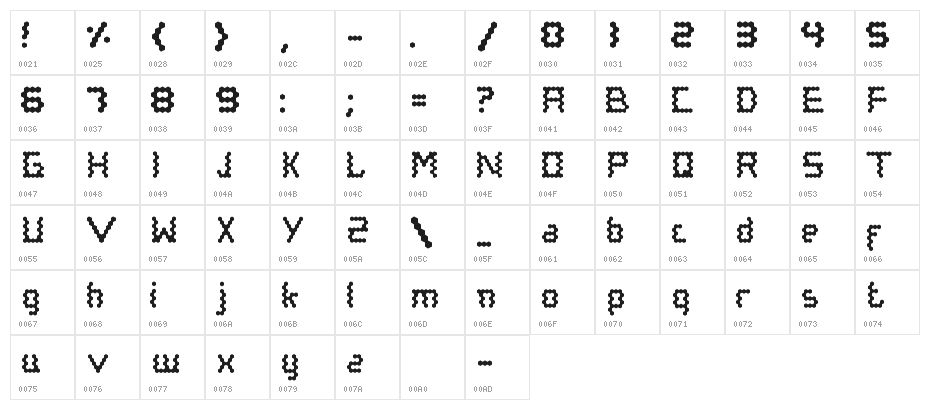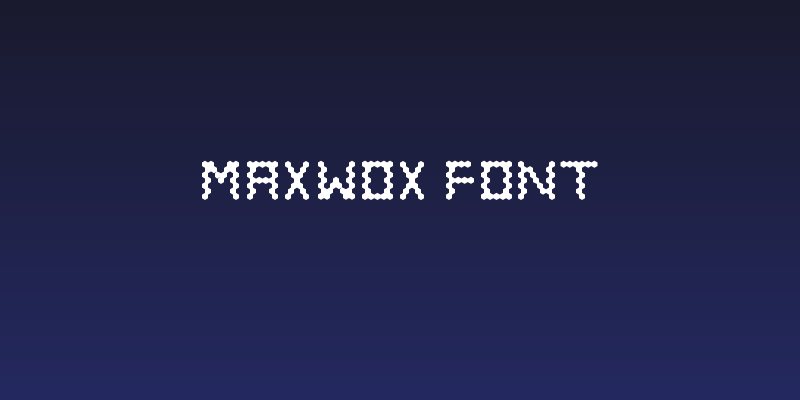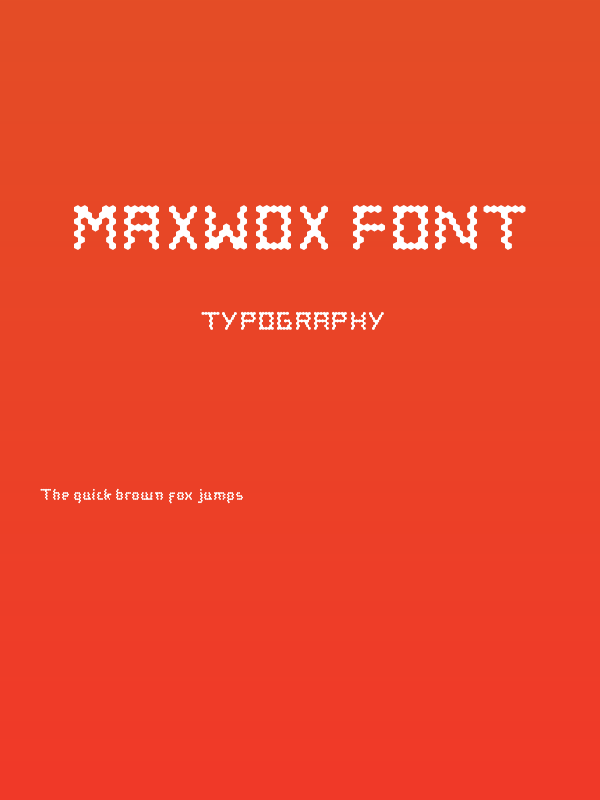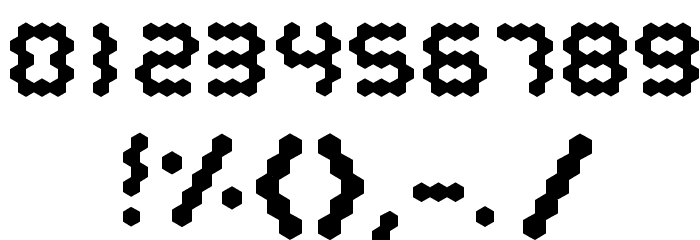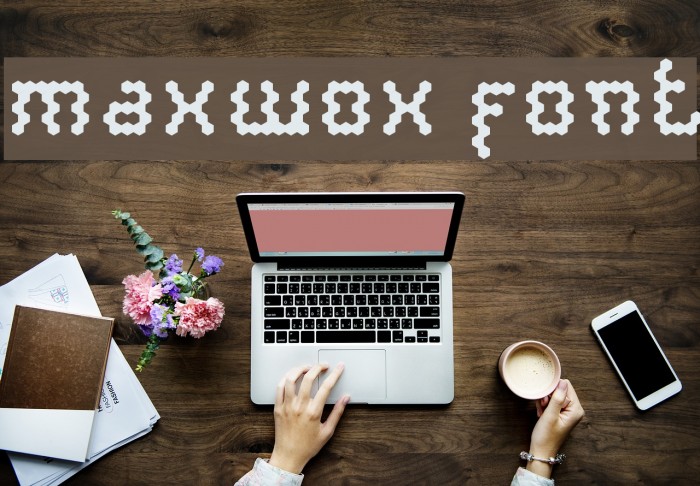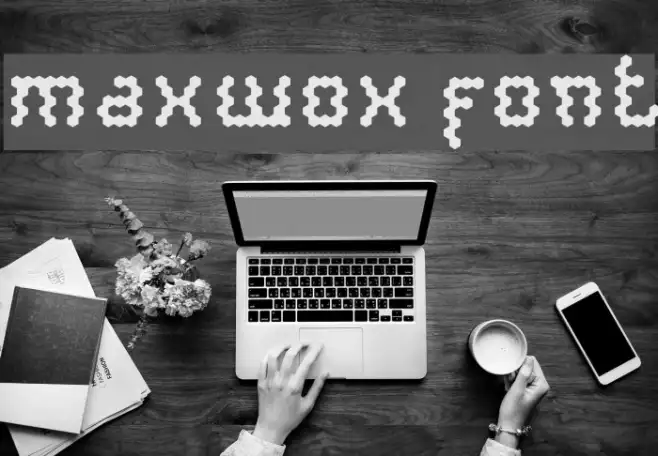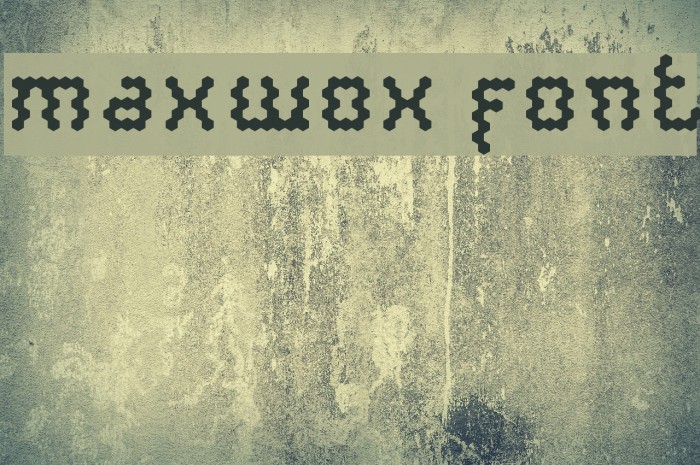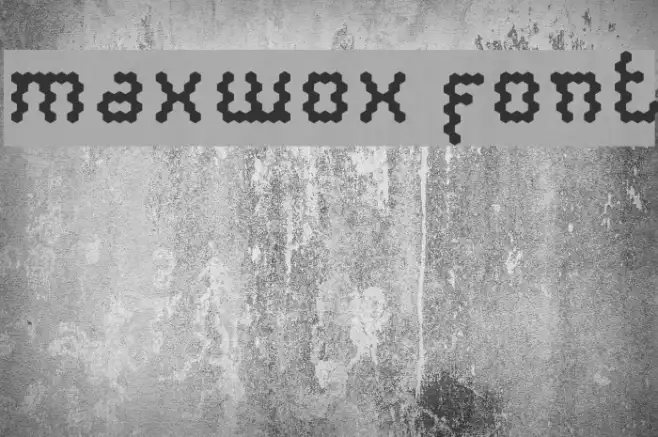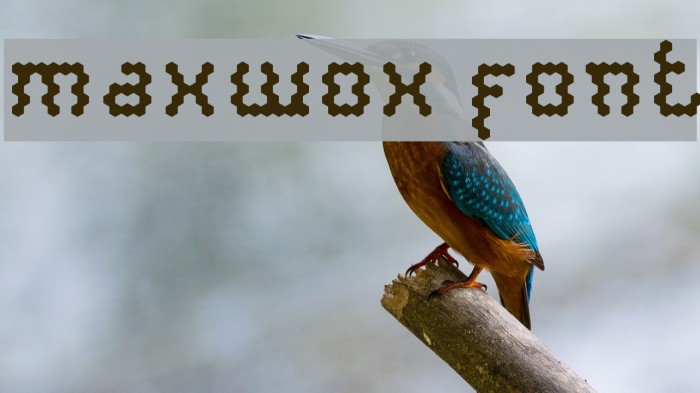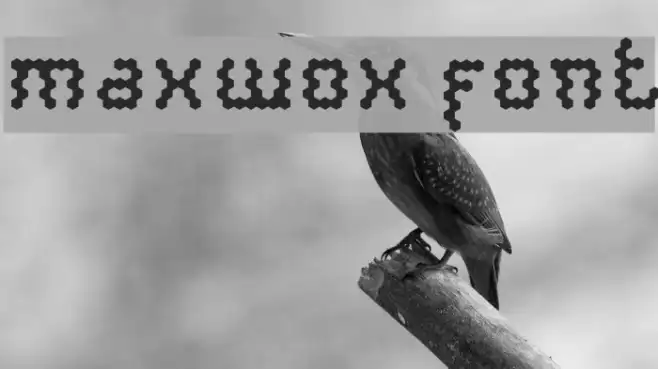
maxwox font Font
maxwox font Description
This font features a unique, pixelated design that resembles a honeycomb or hexagonal pattern. Each character is constructed from a series of connected hexagons, giving it a distinctly geometric and modern appearance. The font maintains a consistent thickness throughout, with no variation in stroke width, resulting in a low contrast. The characters are evenly spaced, providing a balanced and cohesive look. This style is particularly eye-catching and would stand out in digital or print media where a bold, unconventional typeface is desired.
| Use Case | Headlines, Logos, Digital Art |
| Proposed Projects | Ideal for digital art, video game design, tech-themed posters, and modern branding projects. |